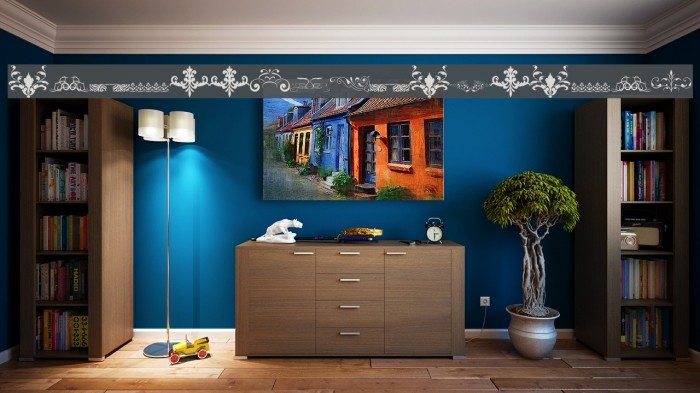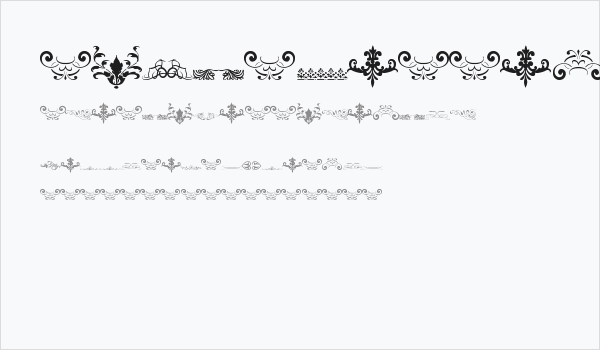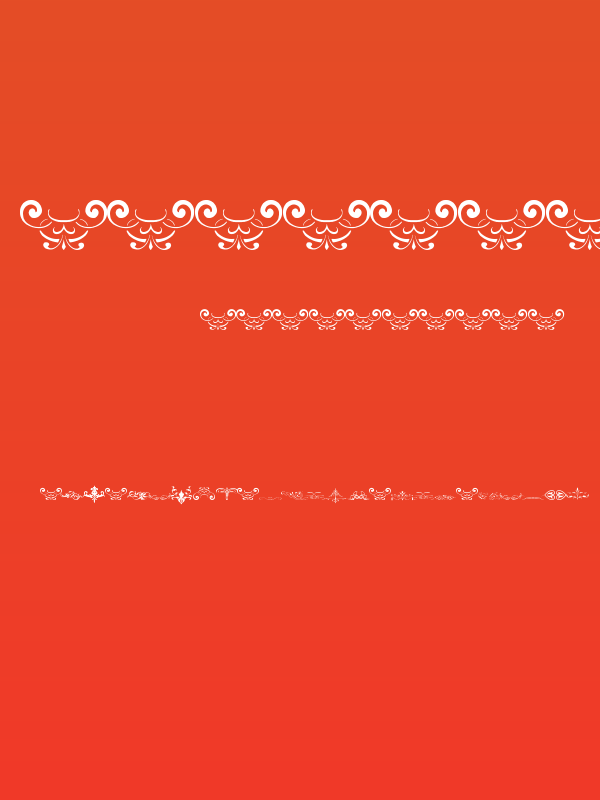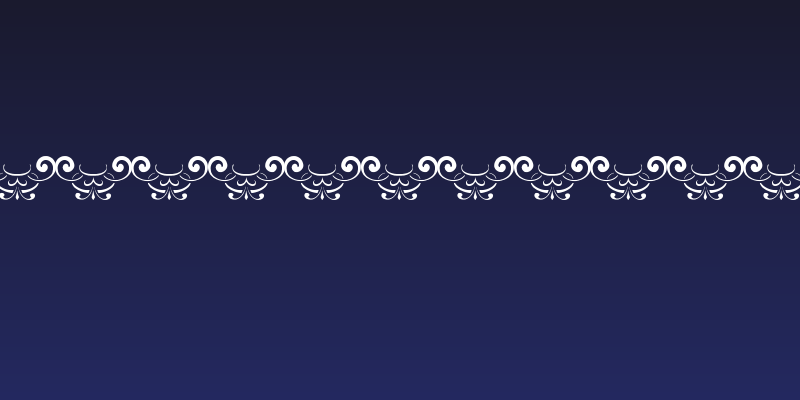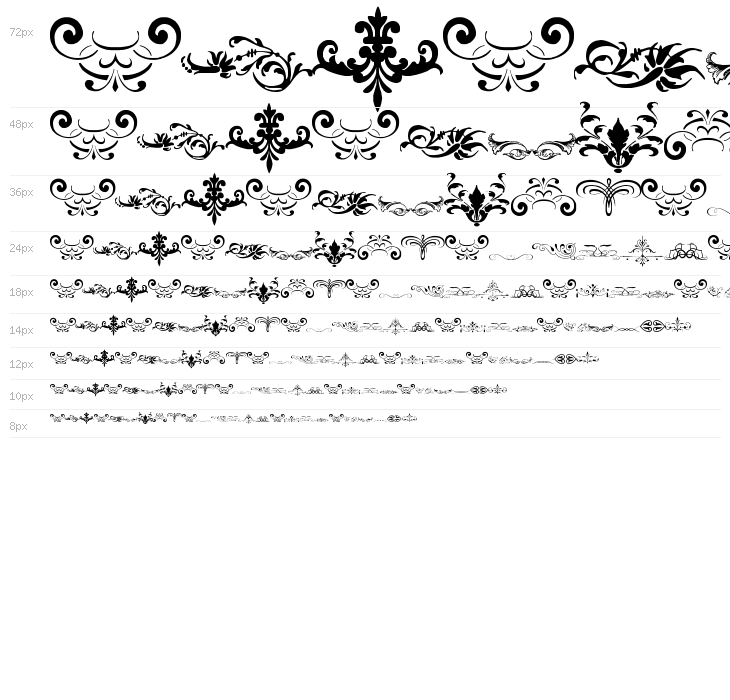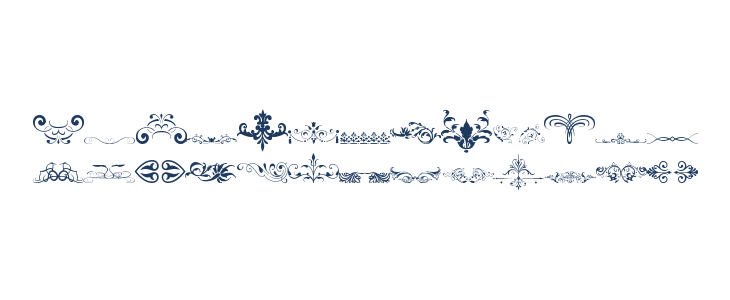
Vintage Decorative Signs 15 Font
Vintage Decorative Signs 15 Description
A collection of ornate, vintage-inspired decorative borders and flourishes featuring symmetrical swirls, curls, and floral motifs. The designs are highly detailed, with varying line thickness and intricate patterns, evoking a classic and elegant aesthetic.
| Overall Style | Vintage, Decorative |
| Use Case | Borders, Frames, Dividers, Decorative accents |
| Proposed Projects | Wedding invitations, certificates, vintage posters, packaging, book covers, decorative signage. |